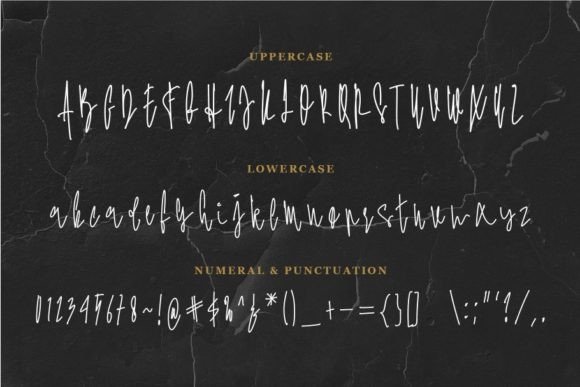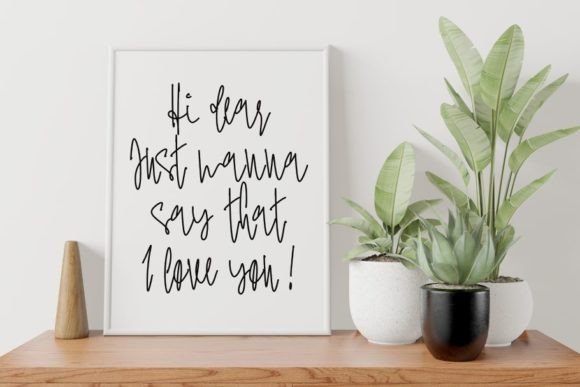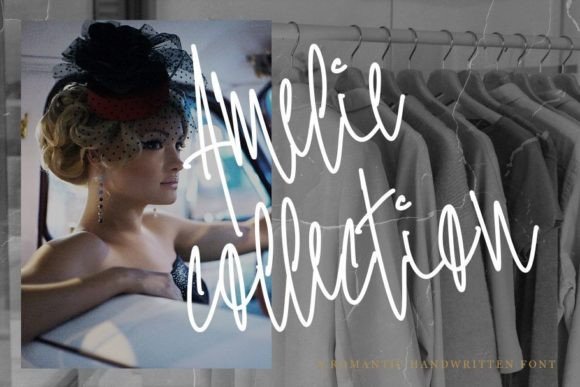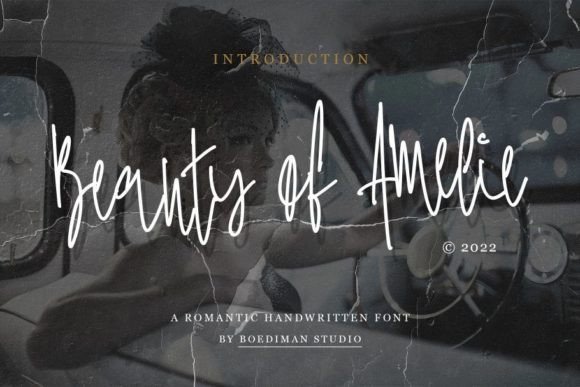
Introduction to Beauty of Amelie Font
Beauty of Amelie – A Handwritten Font A modern handwritten font that brings a romantic feel to your design.
The natural script is suitable for headlines, logotypes, apparel, invitations, branding, packaging, advertising, etc .
Key Features of Beauty of Amelie Font